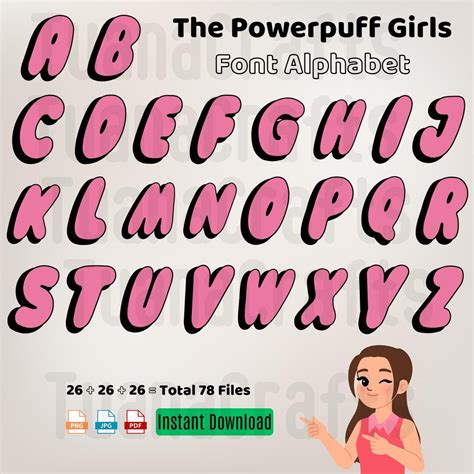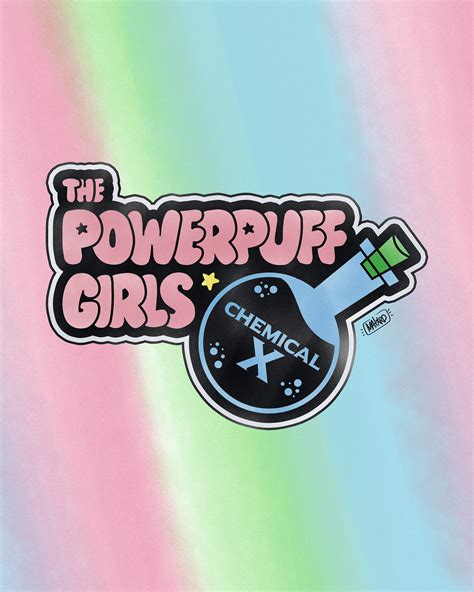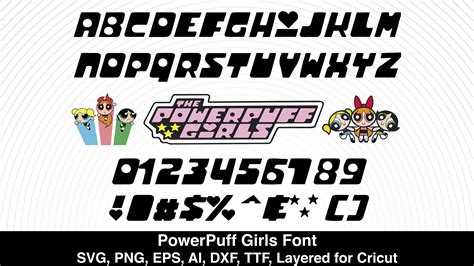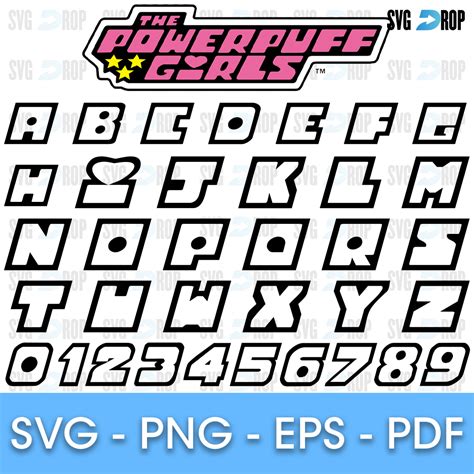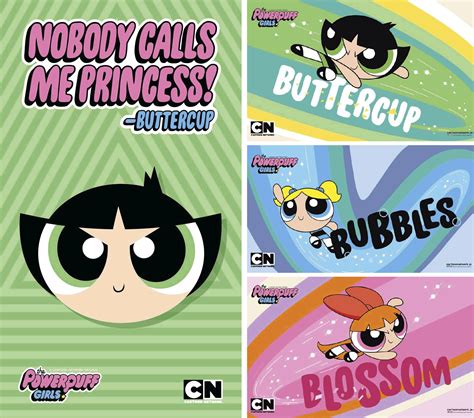
In the vibrant world of design and typography, certain fonts hold a special place in the hearts of enthusiasts and professionals alike. One such font that has captured the imagination of many is the Powerpuff Girls Font. This font, inspired by the iconic animated series "The Powerpuff Girls," brings a playful and energetic vibe to any project it is used in. Whether you're a graphic designer, a fan of the series, or simply someone looking to add a touch of nostalgia to your work, the Powerpuff Girls Font is a fantastic choice.
The Origins of the Powerpuff Girls Font
The Powerpuff Girls Font draws its inspiration from the beloved animated series created by Craig McCracken. The show, which premiered in 1998, follows the adventures of three super-powered sisters—Blossom, Bubbles, and Buttercup—who protect the city of Townsville from various villains and monsters. The font captures the essence of the show's vibrant and dynamic style, making it a favorite among fans and designers.
Characteristics of the Powerpuff Girls Font
The Powerpuff Girls Font is characterized by its bold, rounded letters and playful design. The font features a distinctive style that is both eye-catching and easy to read, making it suitable for a variety of applications. Some of the key characteristics include:
- Bold and Rounded Letters: The font's bold and rounded letters give it a friendly and approachable feel, making it perfect for children's projects and playful designs.
- Dynamic and Energetic: The font's dynamic and energetic style reflects the high-energy adventures of the Powerpuff Girls, making it ideal for projects that require a lively and engaging aesthetic.
- Versatile Use: Despite its playful nature, the Powerpuff Girls Font is versatile enough to be used in a variety of contexts, from children's books and educational materials to graphic design projects and branding.
Applications of the Powerpuff Girls Font
The Powerpuff Girls Font is incredibly versatile and can be used in a wide range of applications. Here are some ideas to inspire you:
Children's Books and Educational Materials
The playful and energetic style of the Powerpuff Girls Font makes it perfect for children's books and educational materials. It can help create an engaging and fun learning environment for young readers.
Graphic Design Projects
Graphic designers can use the Powerpuff Girls Font to add a touch of whimsy and nostalgia to their projects. Whether you're designing posters, flyers, or digital graphics, this font can help you create eye-catching and memorable designs.
Branding and Logos
For brands that want to convey a sense of fun and energy, the Powerpuff Girls Font is an excellent choice. It can be used to create logos, branding materials, and marketing collateral that stand out and capture attention.
Personal Projects
If you're a fan of "The Powerpuff Girls" and want to incorporate the font into your personal projects, there are plenty of opportunities. You can use it to create custom invitations, greeting cards, or even digital art.
Comparing the Powerpuff Girls Font with Other Fonts
To better understand the unique qualities of the Powerpuff Girls Font, it can be helpful to compare it with other popular fonts. Here is a comparison table:
| Font Name | Style | Use Cases | Characteristics |
|---|---|---|---|
| Powerpuff Girls Font | Playful, Energetic | Children's books, Graphic design, Branding | Bold, rounded letters, dynamic design |
| Comic Sans | Casual, Informal | Informal documents, Children's projects | Handwritten style, easy to read |
| Impact | Bold, Attention-Grabbing | Headlines, Posters, Memes | Thick, blocky letters, high contrast |